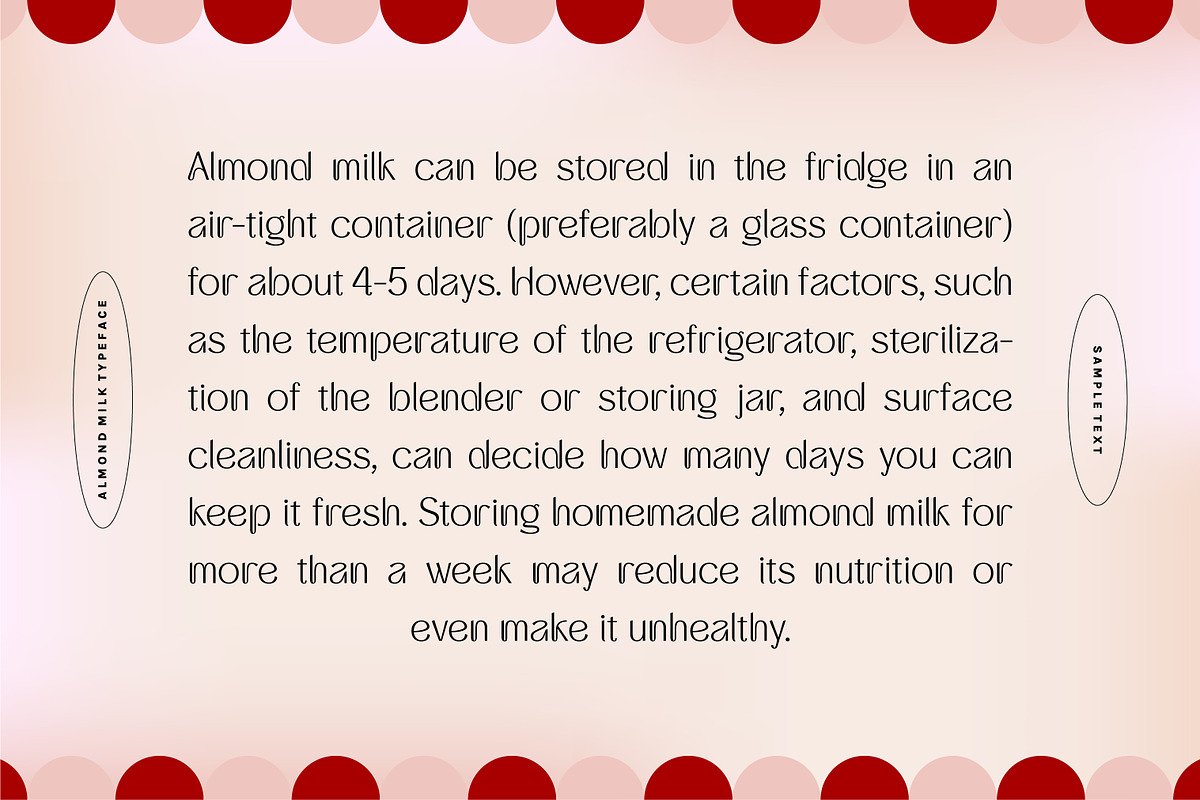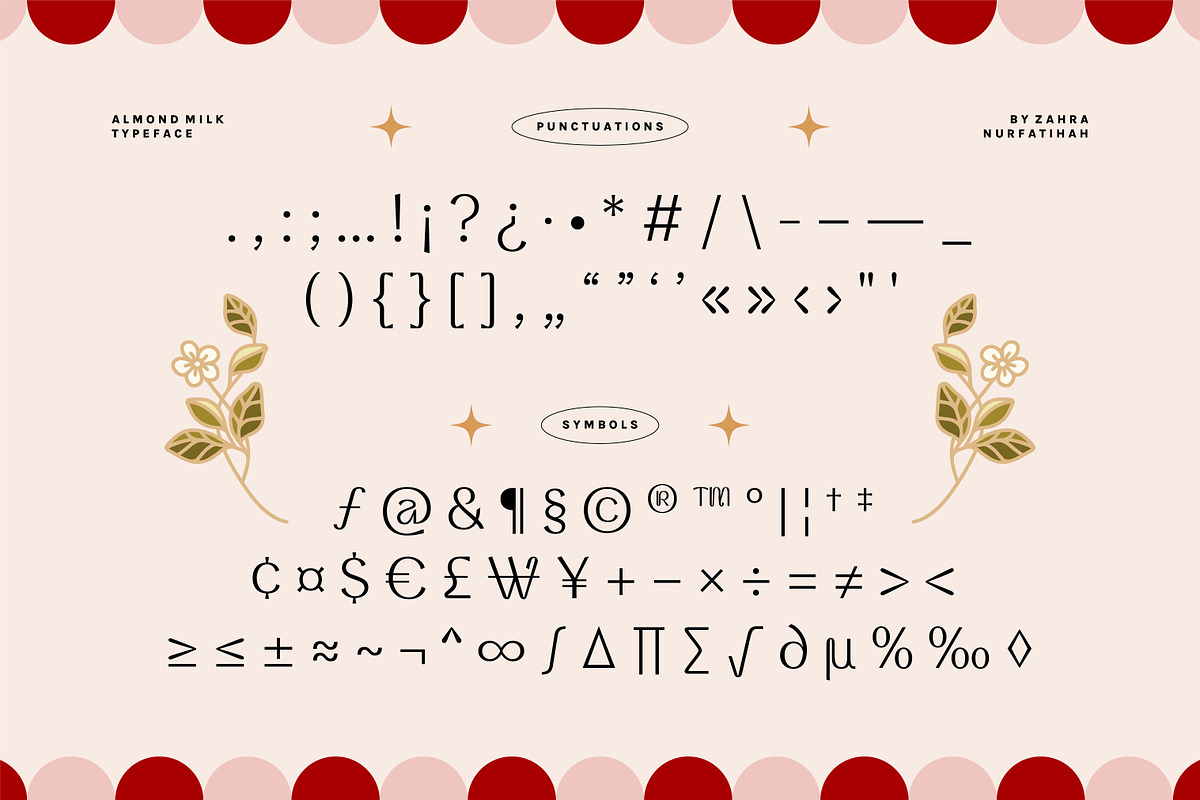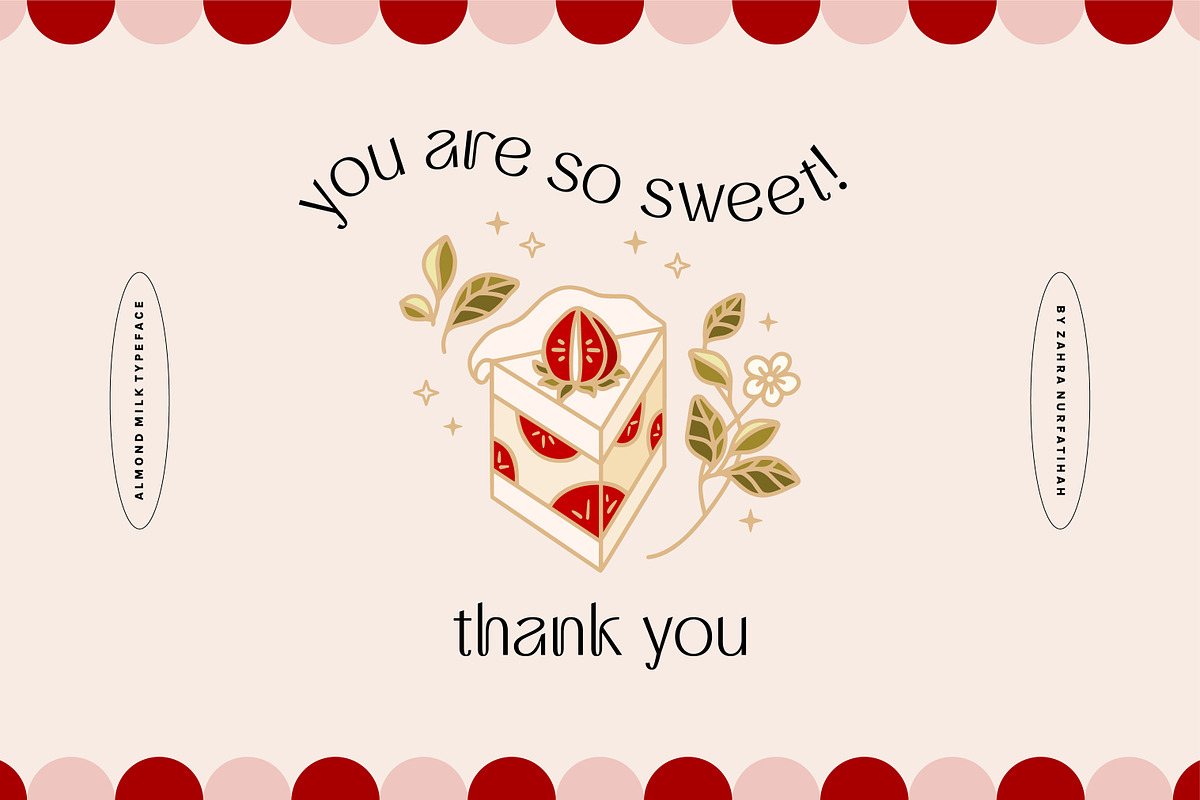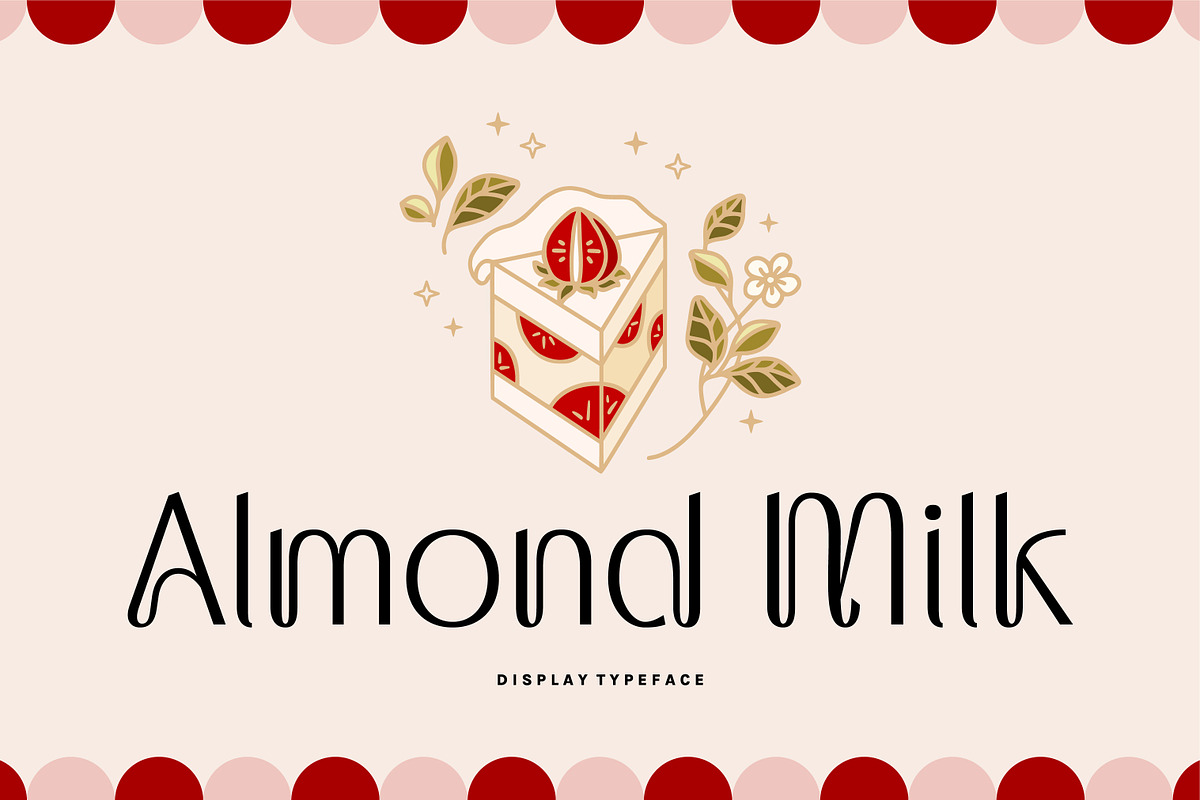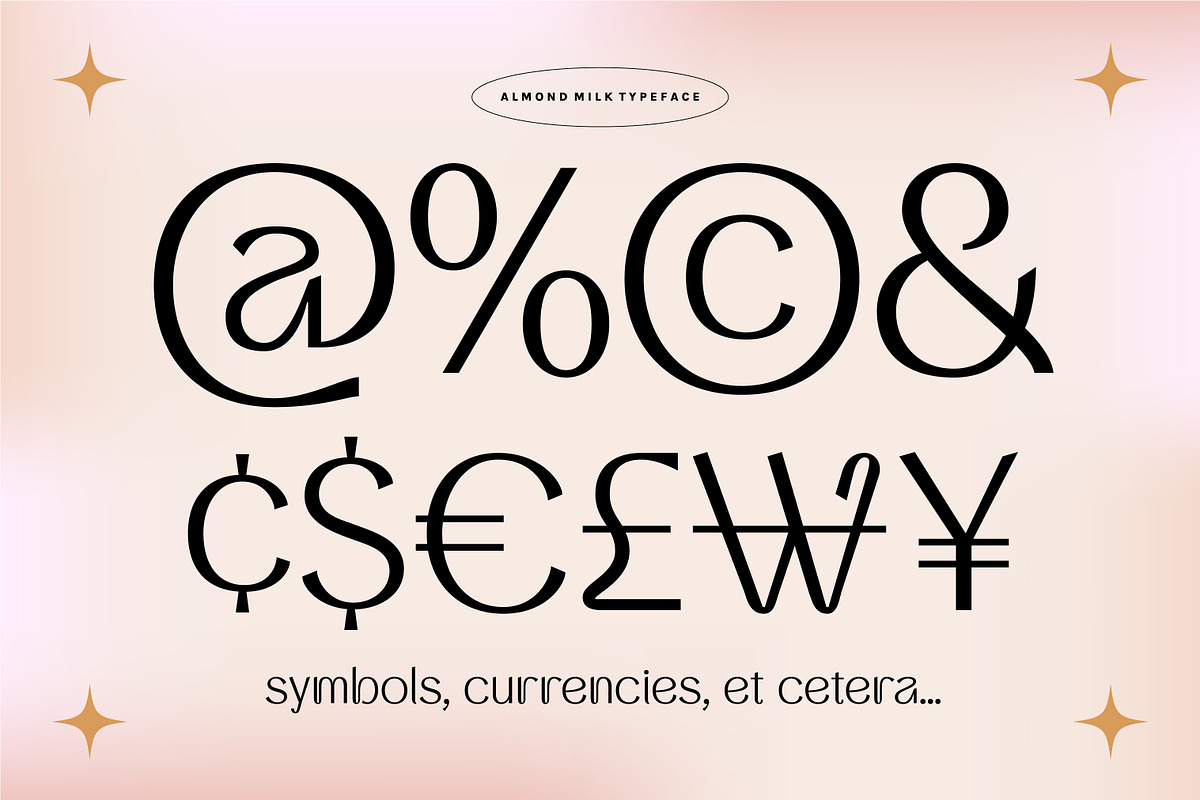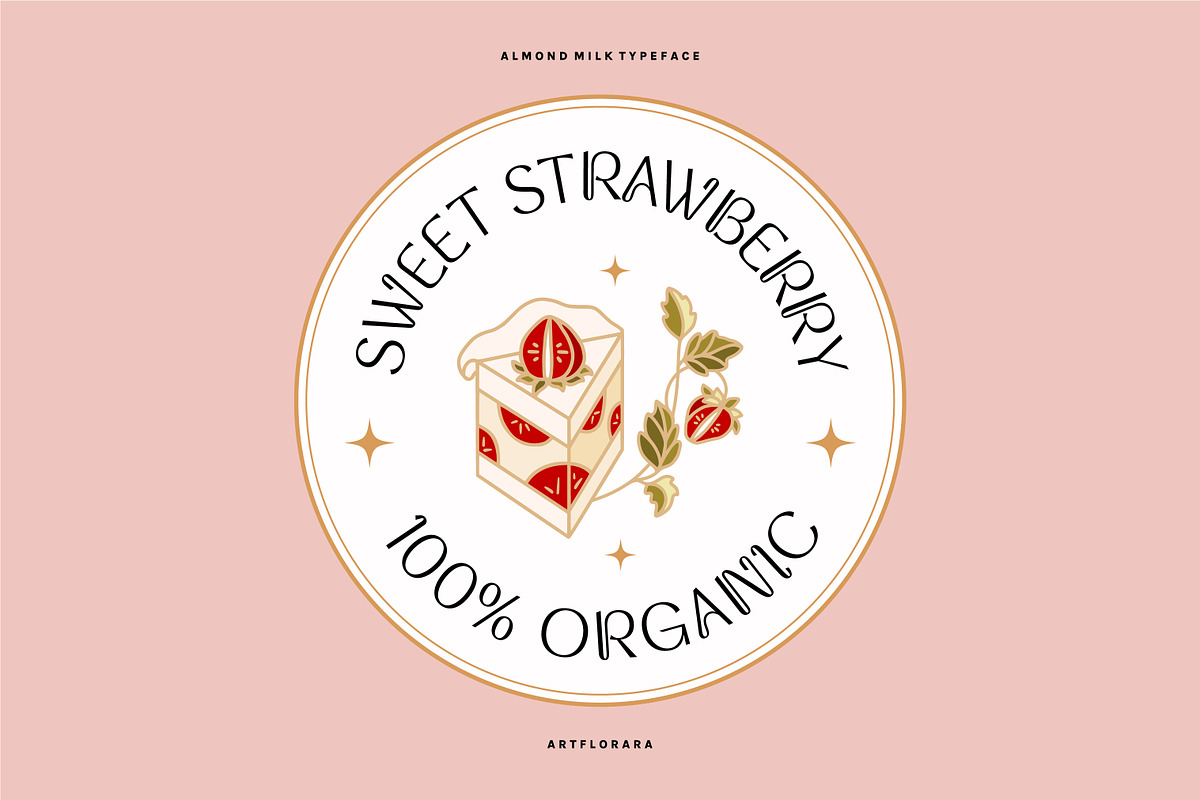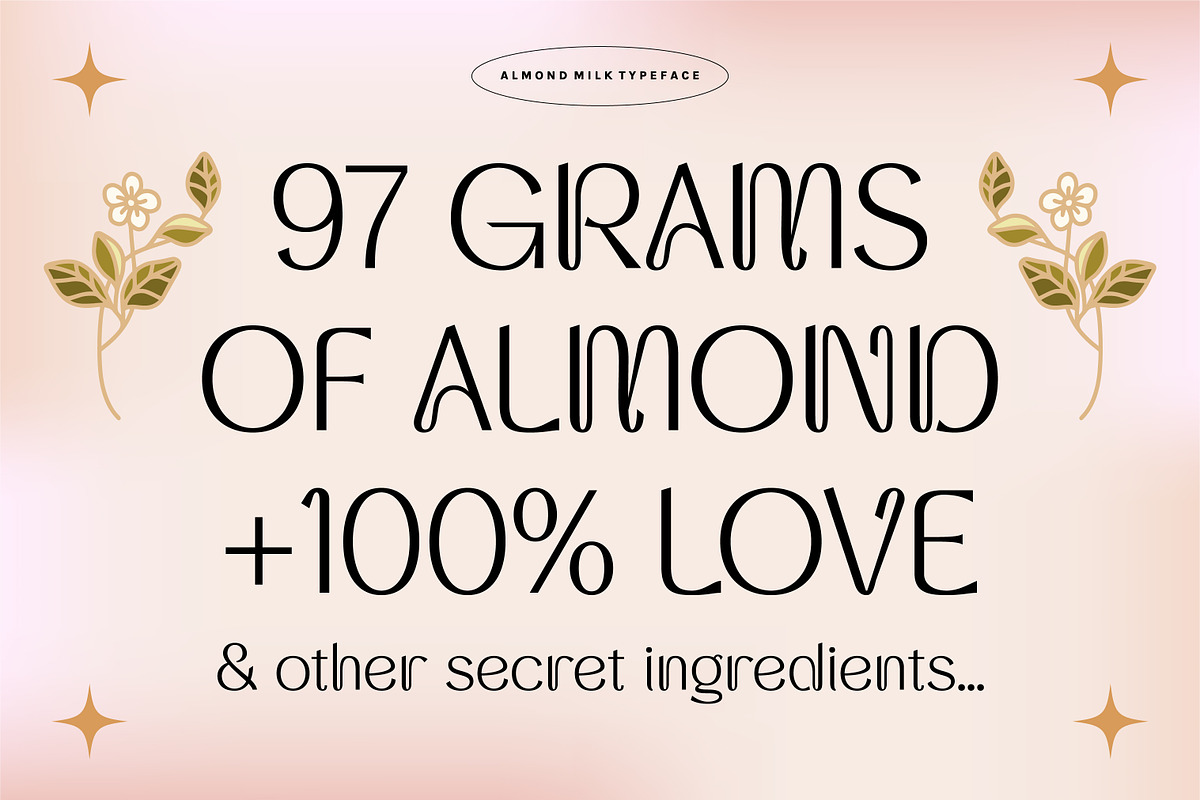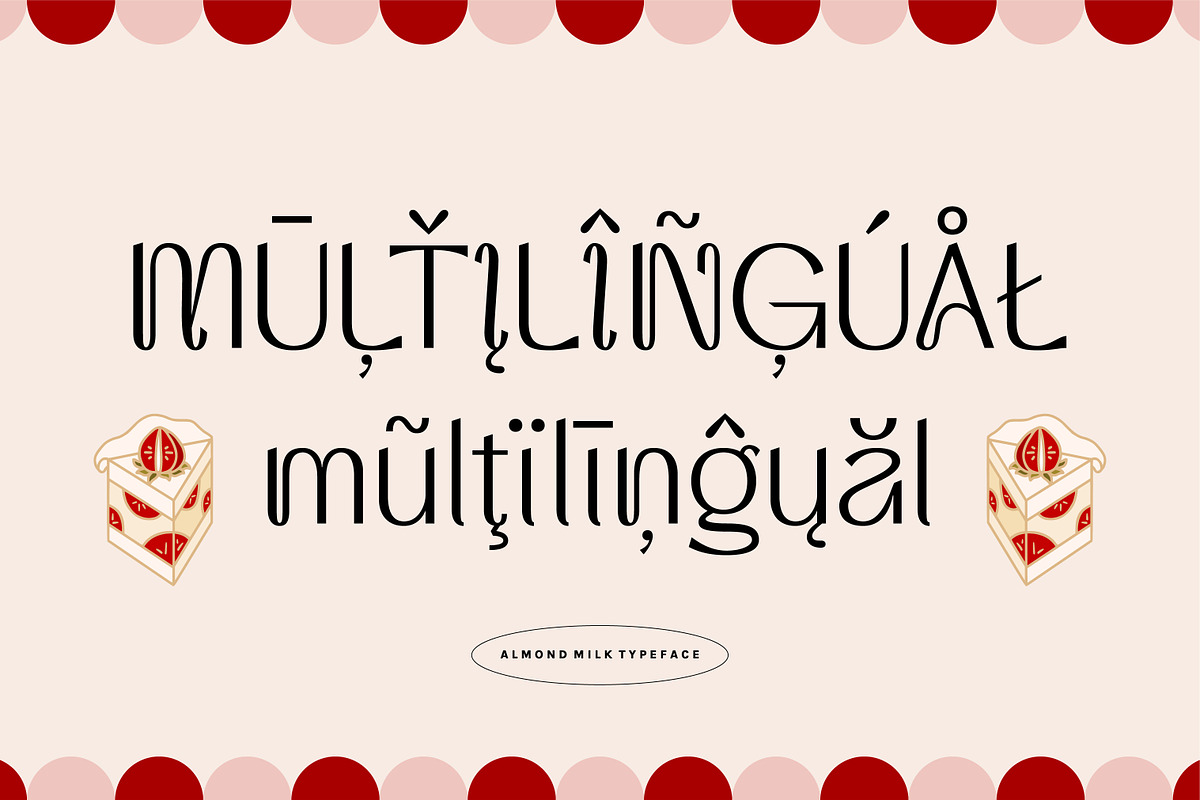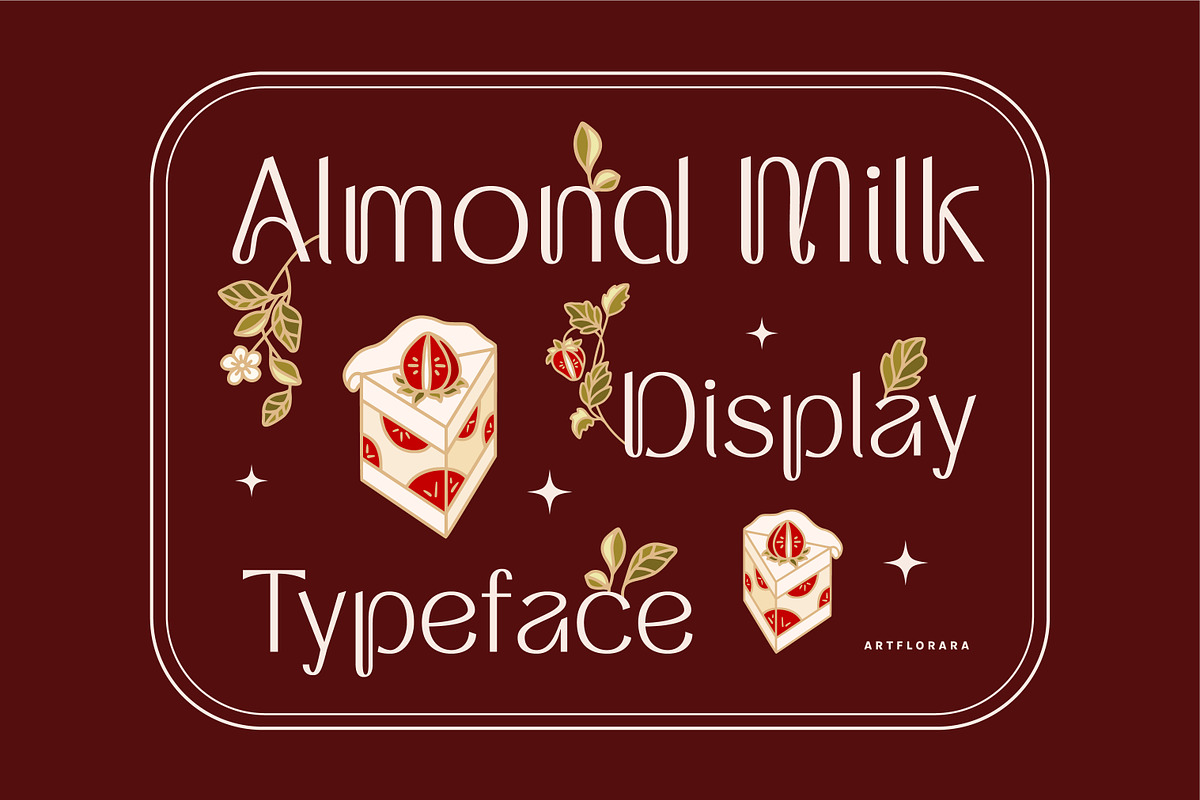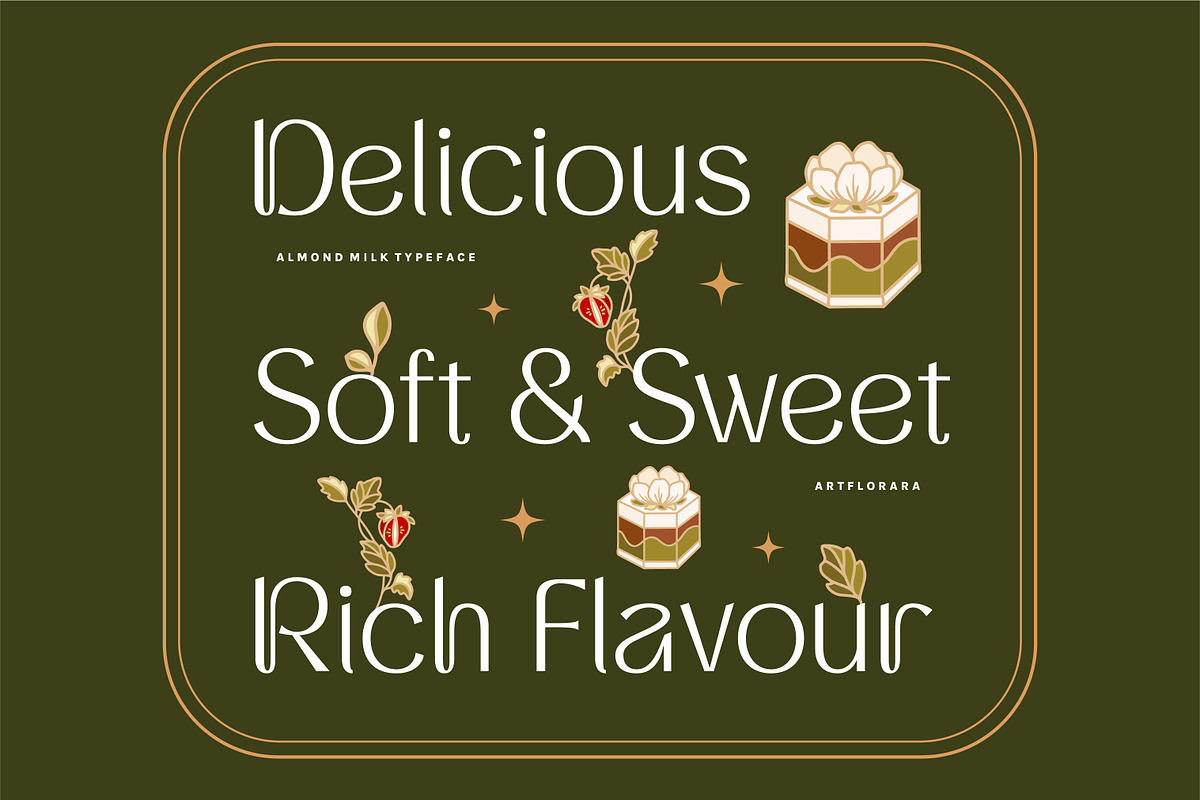
ALMOND MILK - Cute Display Font
Almond Milk is a display sans serif typeface with playful vibes, flowy shapes and medium-contrasted stroke weight. This typeface is perfect for your design needs, such as branding design, book cover, posters, magazine, logo, etc.